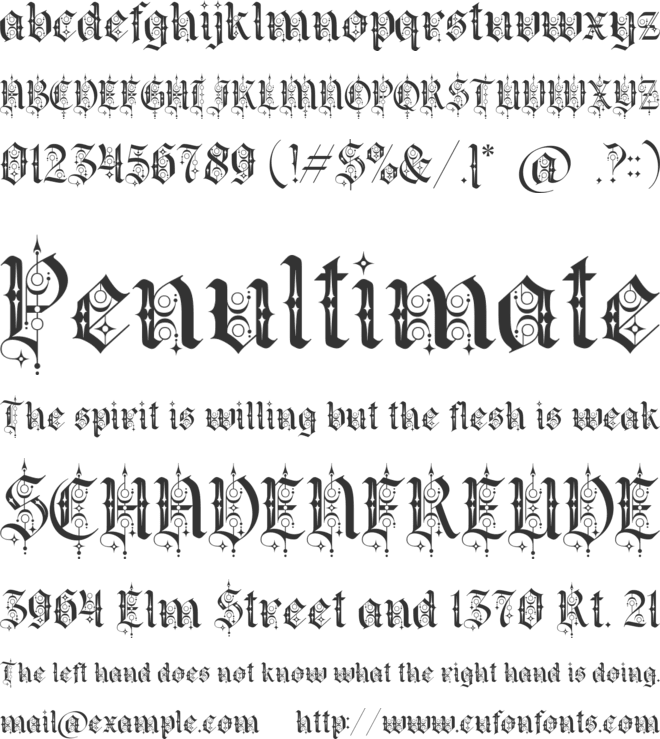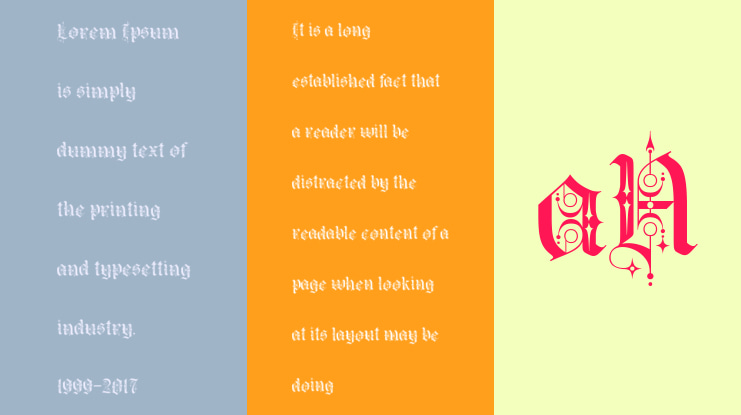
Orbit Magika Font
Orbit Magika: An Ornamental Celestial Blackletter
Step into a realm of arcane elegance with Orbit Magika, a breathtaking ornamental blackletter typeface inspired by the cosmic dance of the planets and the hidden mysteries of ancient magic. By seamlessly blending traditional medieval blackletter structures with delicate celestial symbols and mystical details, this typeface creates a powerful atmosphere of dark fantasy and gothic sophistication.
Whether you are designing for the earthly realm or the vast cosmos, Orbit Magika is crafted to elevate your creative projects with a touch of timeless ambition and enduring beauty.